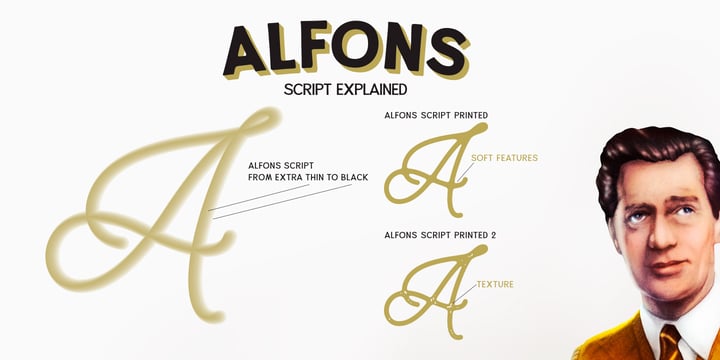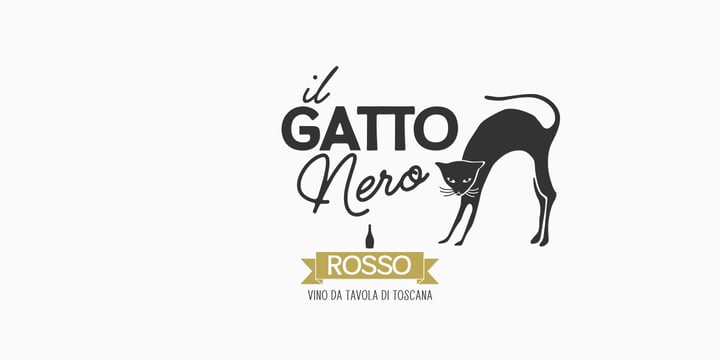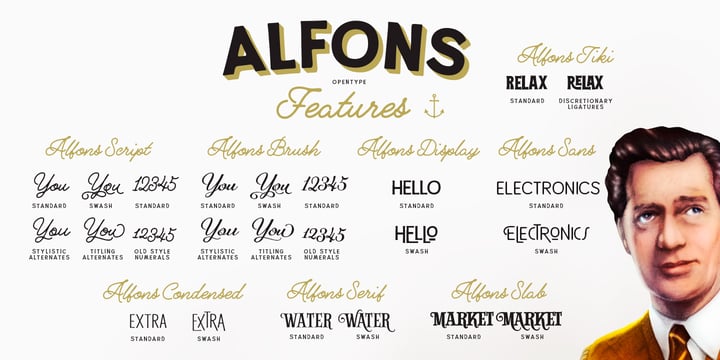
Alfons™
von Fenotype
Die Schriftfamilie Alfons wurde von entworfen und von Fenotype veröffentlicht. Alfons enthält 50 Stile und Familienpaketoptionen.
Alfons is a handy collection of 38 display fonts with a pack of Ornaments and Extras on top of that. Alfons is great for any kind of display use from online to packaging to posters or identities. Alfons is divided into eight subfamilies that play great together. Alfons’ core family is a monoline script that has eight weights from extra thin to black and on top of that two printed versions that have softer, a bit blurred features. Alfons Script is equipped with Standard Ligatures which makes the flow more natural. For more swirling swashes and bouncy flow try Swash, Stylistic or Titling Alternates in any OpenType savvy program or manually select from even more alternate characters from Glyph Palette. Alfons Display, Sans, Condensed, Serif and Slab are equipped with Swash alternates and Alfons Tiki has interlocking ligatures feature that you can access from Discretionary Ligatures. Alfons Extras is a pack of pictograms and icons and some catchwords. Alfons Ornaments is designed to work with Script.